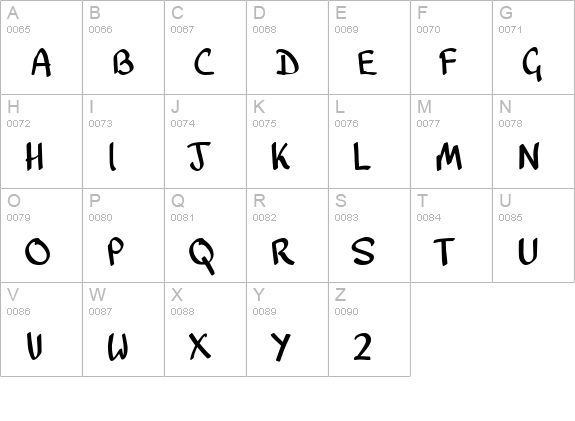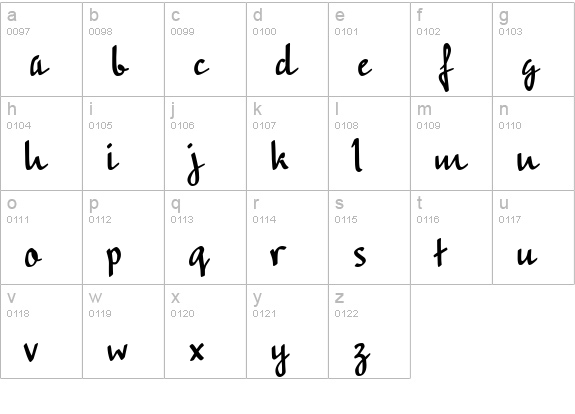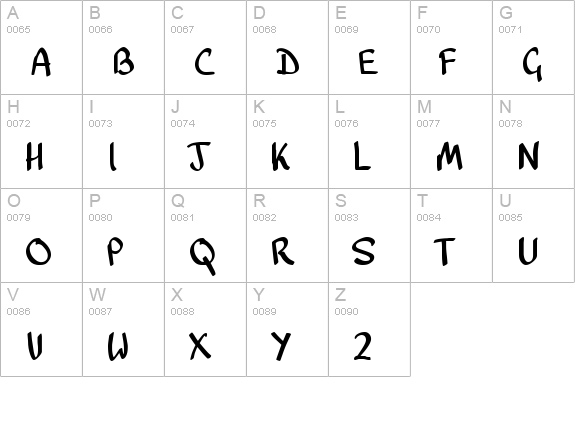
Rainbow (ParaType) Font Details
Rainbow (ParaType) is a stunning font that exudes elegance and versatility. With its unique and vibrant design, this typeface is perfect for adding a touch of whimsy and playfulness to any project. The Rainbow font features a wide range of characters, including uppercase and lowercase letters, numbers, and special symbols, making it suitable for various design purposes. One of the best things about Rainbow (ParaType) is that it is freely available to download at FontsMarket.com. This means that you can easily access and use this beautiful font without any cost. Whether you are a professional designer looking to enhance your creative projects or an individual in need of a stylish font for personal use, Rainbow font is an excellent choice. Featuring a seamless blend of curves and angles, Rainbow (ParaType) offers a visually appealing and modern aesthetic. Its clean and legible design makes it suitable for a wide range of applications, including branding, logos, packaging, posters, invitations, and more. The font's versatility allows it to adapt to various design styles, from bold and eye-catching to subtle and sophisticated. Rainbow (ParaType) stands out with its attention to detail and well-crafted letterforms. Each character is meticulously designed to ensure consistency and clarity, resulting in a polished and professional look. The font's generous spacing and balanced proportions contribute to its overall readability, making it a pleasure to read both in print and on screen. Whether you are designing for print or digital media, Rainbow (ParaType) offers high-quality results. Its smooth curves and sharp edges make it suitable for both large-scale designs and small-scale text. The font is also compatible with various software and can be easily integrated into your preferred design tools. In conclusion, Rainbow (ParaType) is a versatile and visually captivating font that is freely available to download at FontsMarket.com. With its unique design and wide range of characters, this font is perfect for adding a touch of charm and creativity to your projects. Whether you are a professional designer or an individual looking to enhance your personal work, Rainbow font is a fantastic choice that will surely make a lasting impression.